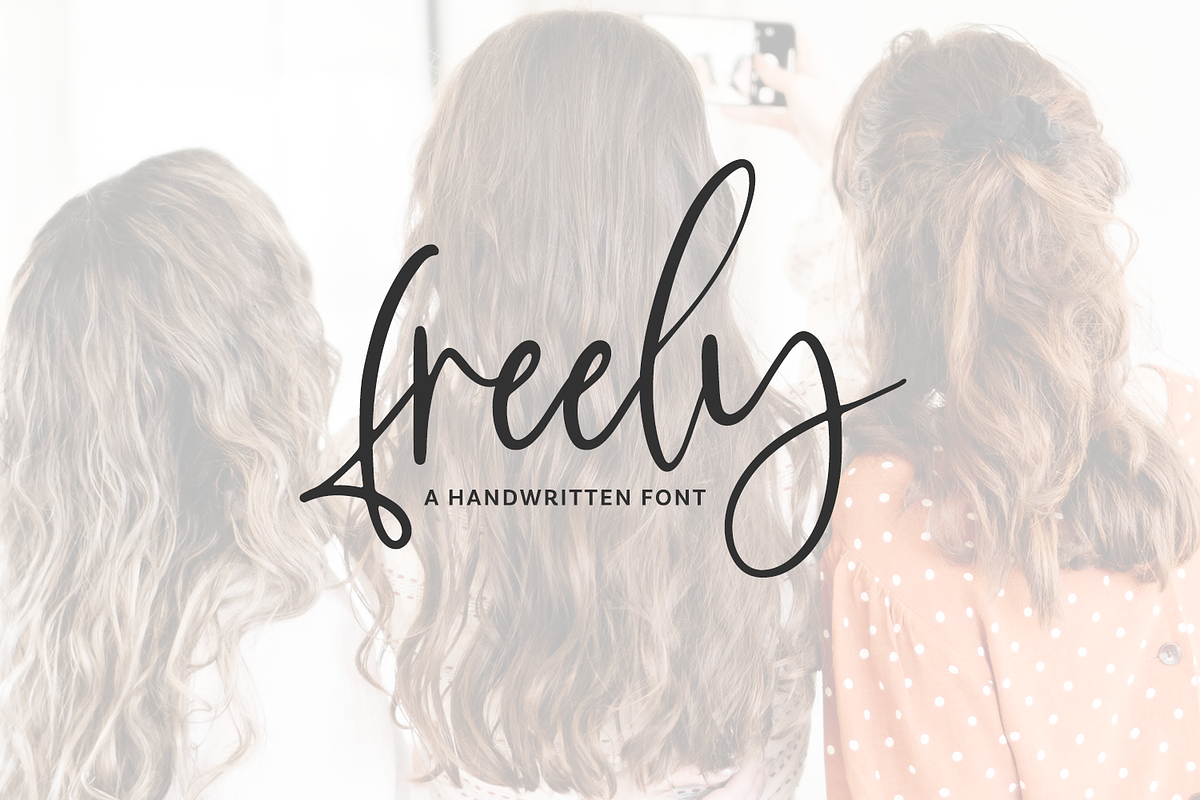
Freely Script Font Free Download
Introducing Freely Script Font Free Download, a dynamic and expressive handwritten typeface that brings a personal touch to your designs. With its bold strokes and fluid style, this font is perfect for posters, greeting cards, branding, and creative projects that require an energetic and informal feel. Its versatility allows it to adapt seamlessly to various design contexts, adding a lively and authentic character to your work. Download Freely Script Font Free Download to experiment with its features in personal projects. For commercial use, please ensure you purchase the appropriate license. Elevate your typography with the vibrant and engaging Freely Script Font Free Download